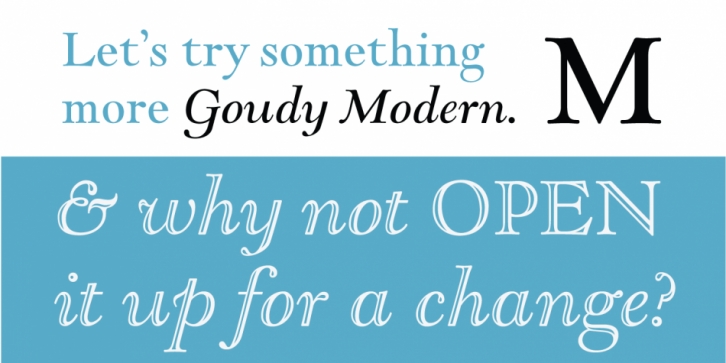
Designed by Frederic W. Goudy and Paul Hunt, LTC Goudy Open is a display serif font family. This typeface has four styles and was published by P22 Type Foundry.
Goudy Open was designed by Frederic Goudy, who was inspired by the caption of a French engraving. It is Goudy’s first attempt at a “modern” face, but with less contrast and rigidity normally found in Bodoni style Modern faces.
Goudy Modern was designed later in 1918 after viewing a proof of Goudy Open with the line filled in. Not a true “modern” face, but still a Goudy classic.
The Pro versions include ligatures, varieties of numerals and Central European character sets.